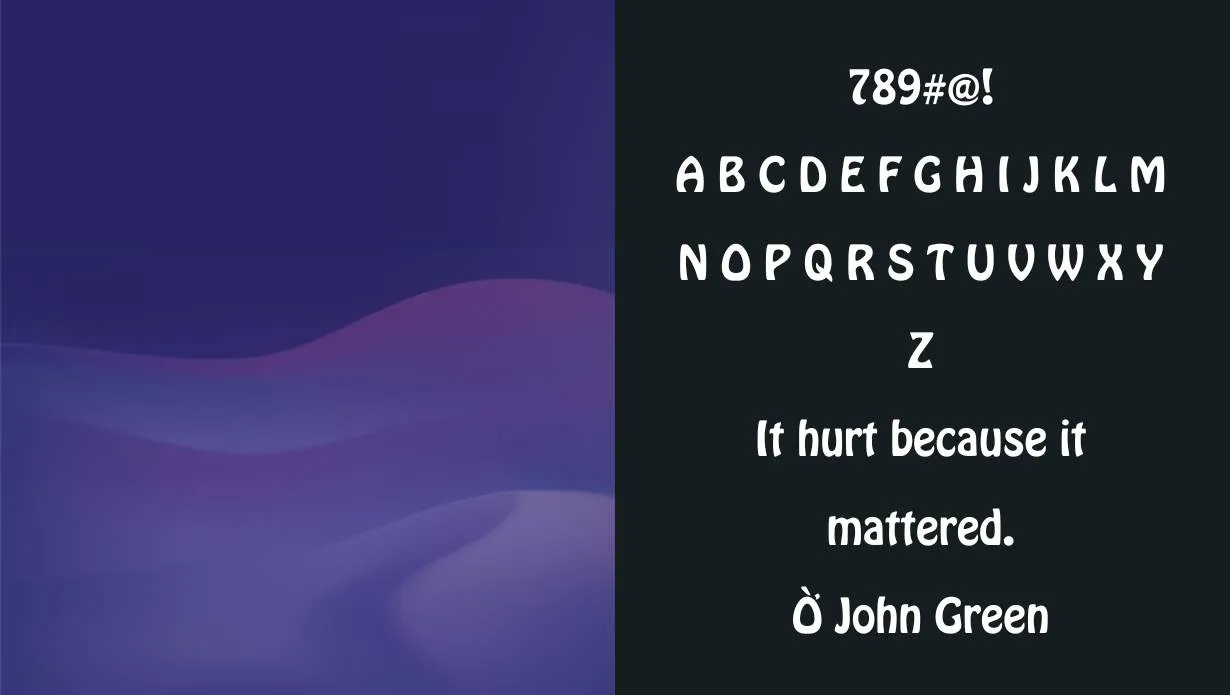
Vi Sau Dong Font is a typeface created by Dior Homme, a South Korean company specializing in design. It was designed by one of the famous designers and after it got published this typeface was famous all over the globe. The font was released in 1998 and is available in TTF format.
It comes in capital letters, small letters, numbers, icons, glyphs, punctuation, and symbols.
This typeface and gretoon font has many matching personalities and the same characteristics because of their same height and large characters.